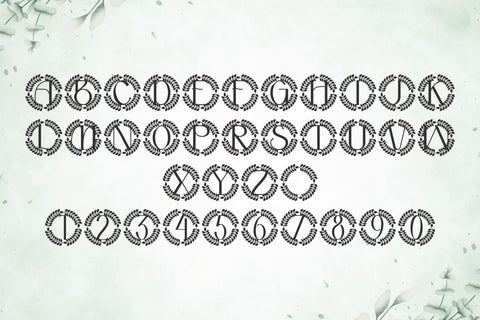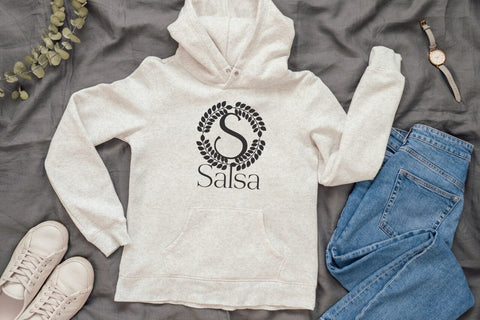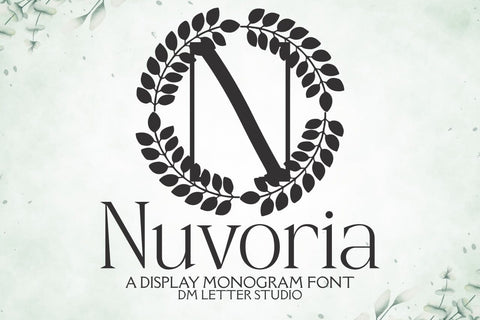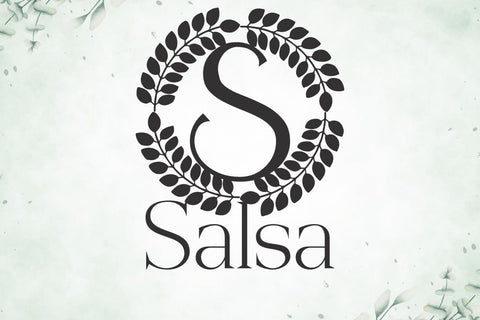
Nuvoria Monogram Font
Meet Nuvoria, the Monogram Font
Nuvoria Monogram Font turns simple initials into sleek, boutique-ready emblems. Strokes feel smooth and confident, while open counters keep tiny tags readable. Use it for wedding suites, boutique logos, keepsake gifts, foil seals, and elegant packaging. Moreover, Nuvoria pairs beautifully with modern serifs and quiet humanist sans fonts, so your layouts look refined without extra work.
Where this monogram font shines
Set single, double, or triple initials for logos, seals, menus, and place cards. Then frame them with laurel rings, ovals, or thin rules to echo the poised geometry. Since proportions favor symmetry and clarity, centered compositions come together in minutes. As a result, thumbnails stand out across marketplaces and your listings feel consistent from invites to signage. Nuvoria also scales smoothly from jewelry cards to entry displays.
Design tips for Nuvoria Monogram
Keep initials large and let white space breathe. Pair the headline monogram with a soft serif for body text or a clean sans for labels. Add micro shadows, a fine inner stroke, or a delicate frame to create depth. Because the forms feel airy and balanced, textured papers and metallic accents raise perceived value. However, keep copy short so the monogram remains the hero.
Select stylistic alternates for key letters